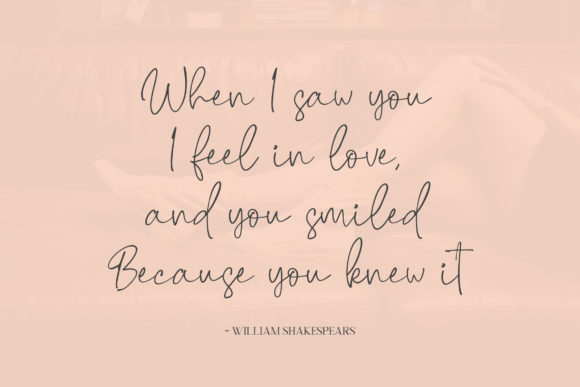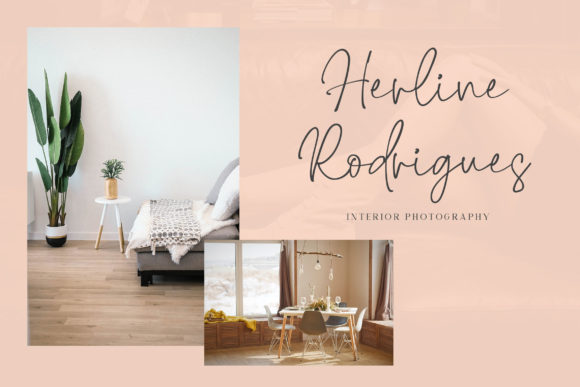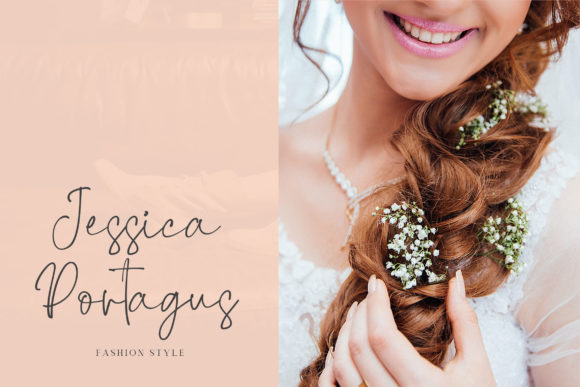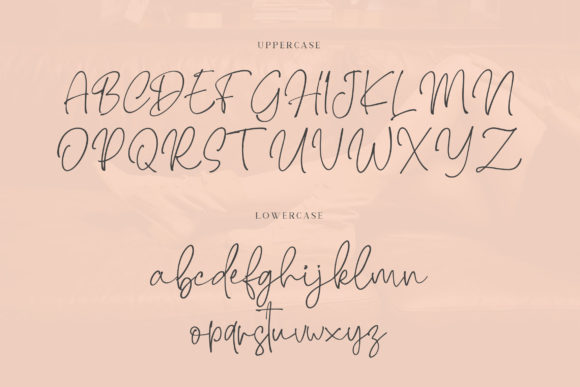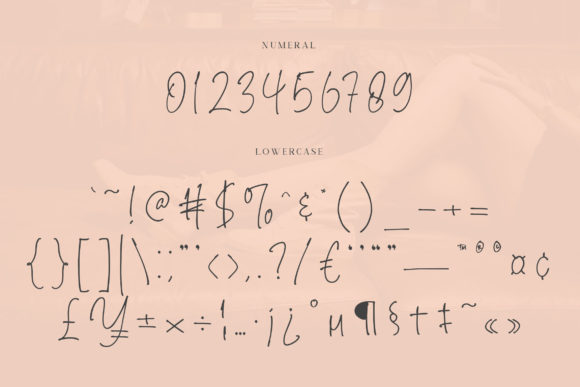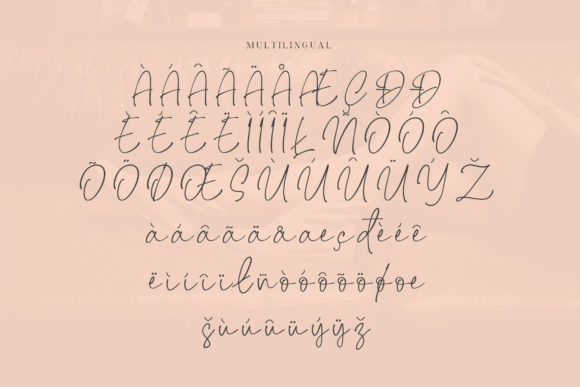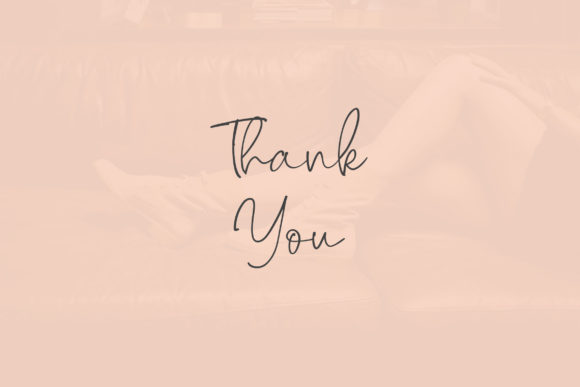
Brendria Font
About Brendria Font
Brendria is a flowing and relaxed handwritten font. It maintains its classy calligraphic influences while feeling contemporary and fresh. Fall in love with Brendria and bring your projects to the highest levels!